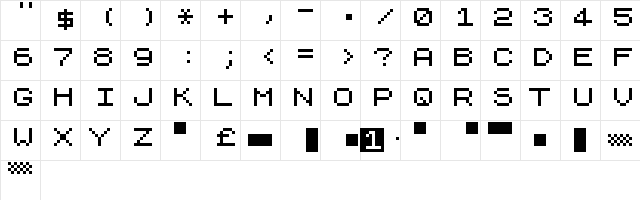
ZX81 VDU Regular
Design Context for ZX81 VDU Typeface
ZX81 VDU is a composed and adaptable typeface that performs quietly and consistently across a wide range of design contexts.